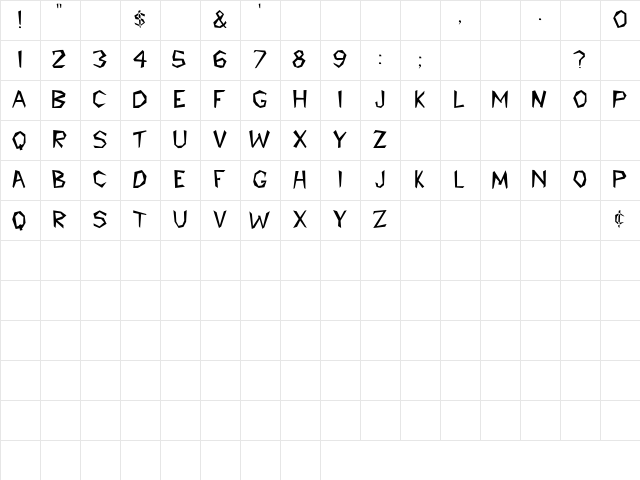
Cavemann Regular Free Font
Cavemann Regular
Cavemann Family
Complete Cavemann Regular glyph index. Displaying only characters natively supported by Cavemann Regular font.
Design Context for Cavemann
Cavemann is a composed and adaptable typeface that performs quietly and consistently across a wide range of design contexts.